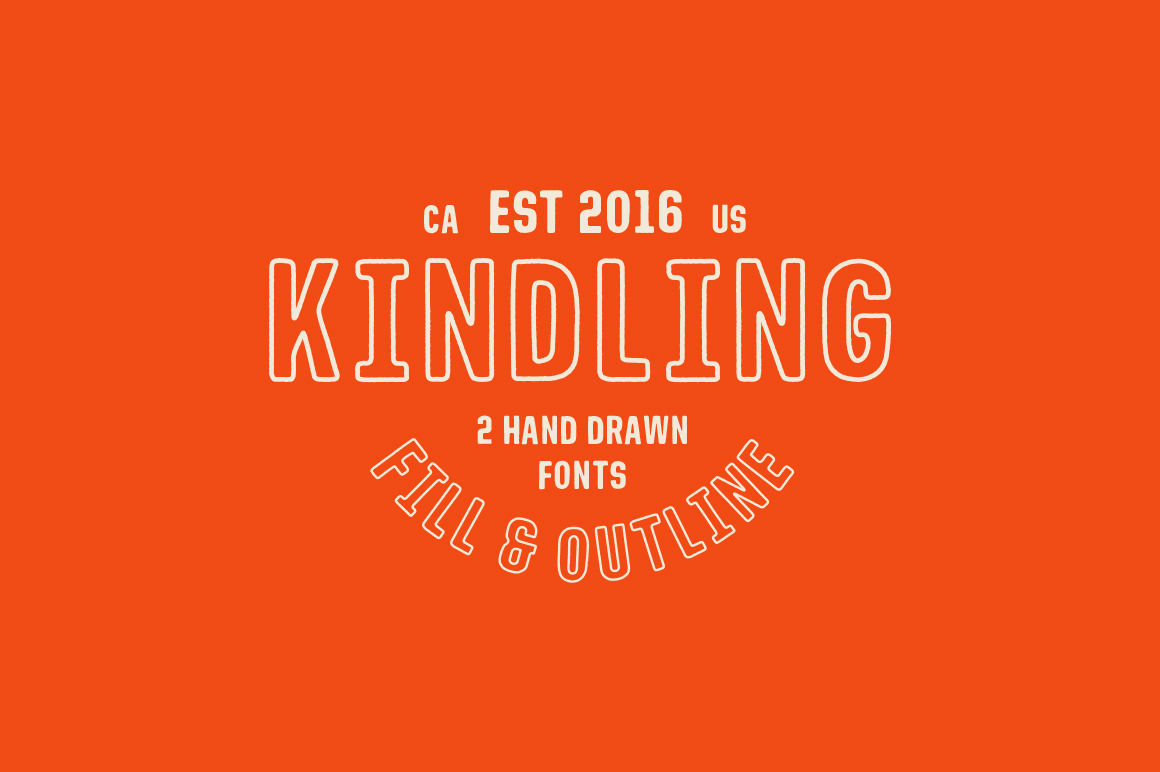
Kindling - Hand Drawn Font
Kindling is a hand drawn sans serif font that comes in two weights: Fill and Outline.
I've been looking for a hand drawn condensed sans serif font for a while and haven't found the right one. I decided to create my own to fill that void. It looks great small and looks even better when scaled up to show off the hand drawn character in the edges. It's perfect for your hand drawn logos and branding. This font comes in .OTF format and includes 10 numbers, Various Glyphs, 26 letters.